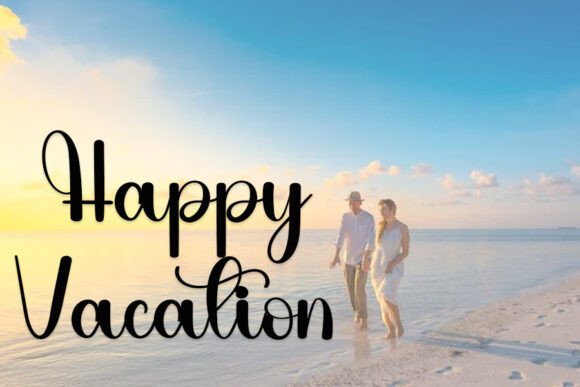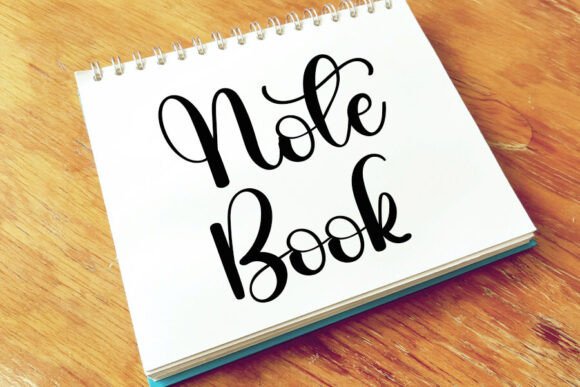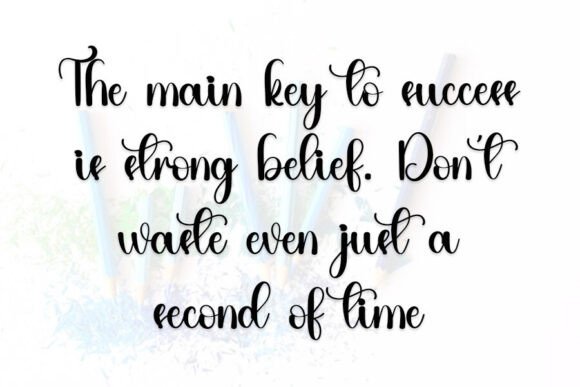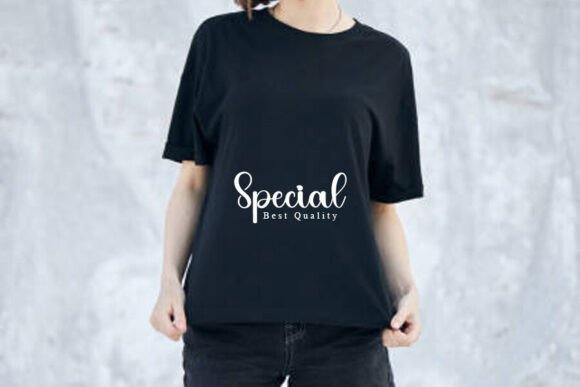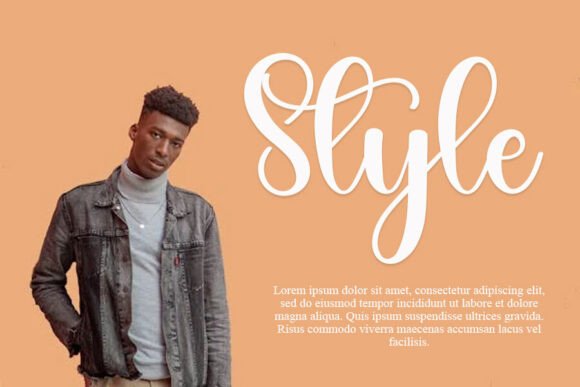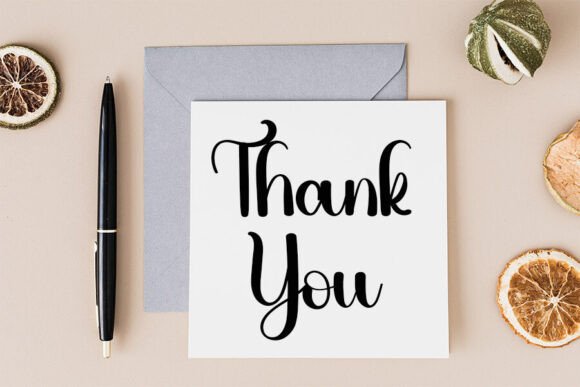
Introducing Creative Font: The Perfect Blend of Freshness and Elegance
Are you tired of using the same old fonts in your design projects? Look no further than Creative Font, a charming handwritten font that brings a sense of freshness and casual elegance to any design. With its fluid strokes and organic lines, Creative Font is the perfect choice for designers and crafters looking to add a touch of warmth and personality to their work.
The Characteristics of Creative Font
Creative Font is a unique and versatile font that is imbued with a laid-back vibe, making it perfect for a wide range of design projects. Its fluid strokes and organic lines give it a natural and effortless feel, while its elegant and refined appearance makes it suitable for more formal designs. Whether you’re looking to create a brand identity, design an invitation, or craft a social media graphic, Creative Font is the perfect choice.
What Makes Creative Font So Special?
So, what sets Creative Font apart from other fonts? Here are just a few of its standout features:
- Fluid Strokes: Creative Font’s fluid strokes give it a natural and effortless feel, making it perfect for designs that require a touch of elegance and sophistication.
- Organic Lines: The font’s organic lines add a touch of warmth and personality to any design, making it perfect for crafters and designers looking to create unique and eye-catching projects.
- Casual Elegance: Creative Font’s casual elegance makes it perfect for a wide range of design projects, from formal invitations to social media graphics.
- Versatility: Creative Font is a versatile font that can be used in a variety of design projects, making it a great addition to any designer’s toolkit.
Using Creative Font in Your Design Projects
Creative Font is perfect for a wide range of design projects, including:
- Branding: Use Creative Font to create a unique and eye-catching brand identity that sets your business apart from the competition.
- Invitations: Add a touch of elegance and sophistication to your invitations with Creative Font.
- Social Media Graphics: Use Creative Font to create eye-catching social media graphics that grab attention and drive engagement.
- Packaging: Add a touch of personality and whimsy to your packaging with Creative Font.
Tips for Getting the Most Out of Creative Font
Here are a few tips for getting the most out of Creative Font:
- Experiment with Different Sizes: Creative Font looks great in a variety of sizes, so don’t be afraid to experiment and find the perfect size for your design.
- Pair it with Other Fonts: Creative Font pairs well with a variety of other fonts, so try pairing it with a bold font for a striking contrast.
- Use it in Combination with Images: Creative Font looks great in combination with images, so try using it to add a touch of elegance and sophistication to your designs.
Creative Font is a charming handwritten font that brings a sense of freshness and casual elegance to any design. With its fluid strokes and organic lines, it’s the perfect choice for designers and crafters looking to add a touch of warmth and personality to their work. Whether you’re looking to create a brand identity, design an invitation, or craft a social media graphic, Creative Font is the perfect choice. So why wait? Download Creative Font today and start creating unique and eye-catching designs that stand out from the crowd!